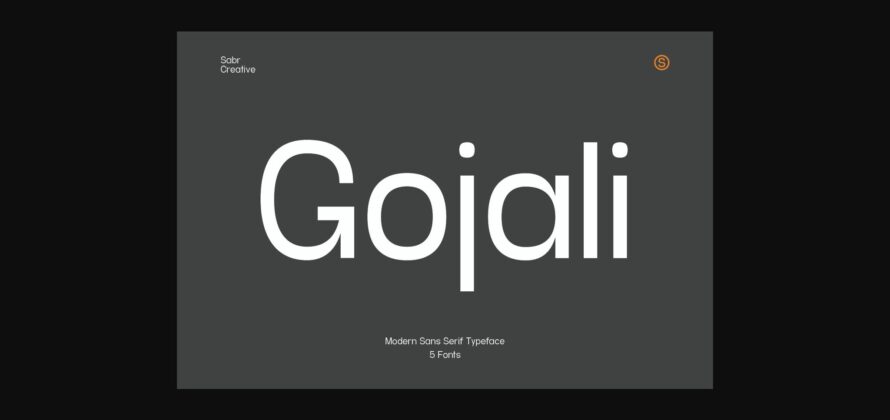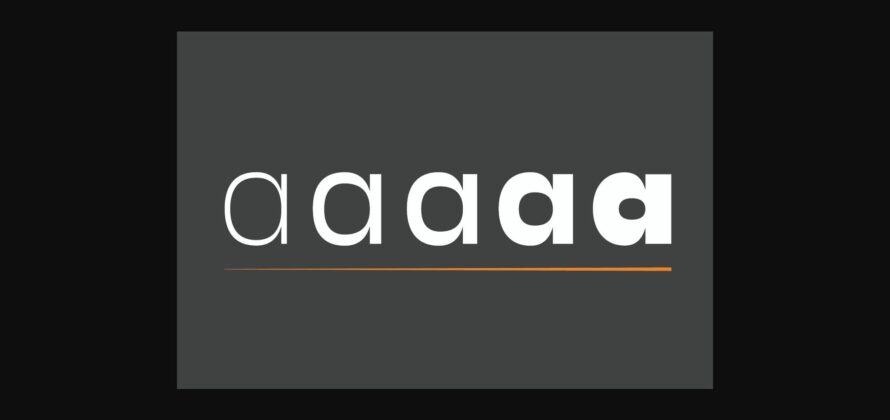
About Gojali Font
Gojali is a classic sans serif font. Masterfully designed to become a true favorite, this font has the potential to bring each of your creative ideas to the highest level!